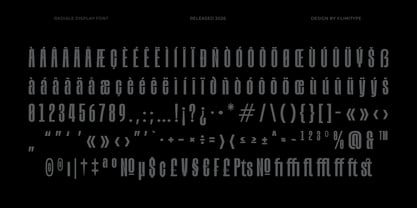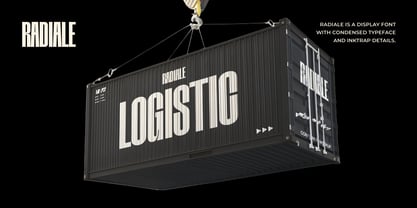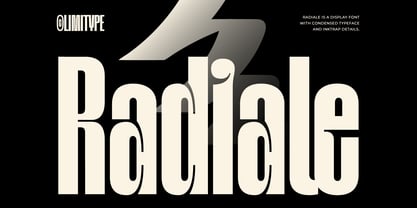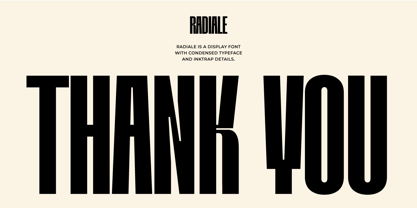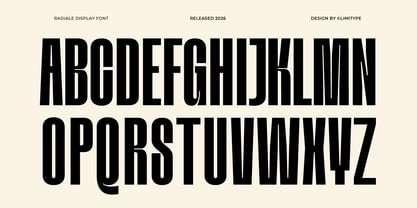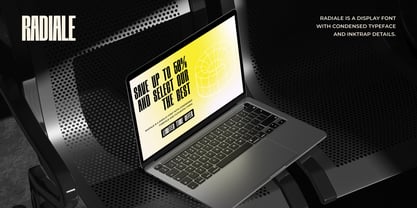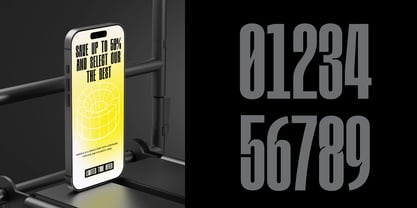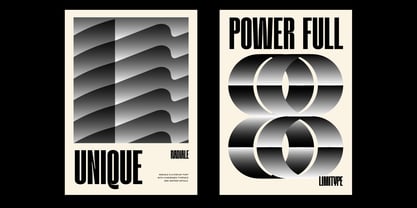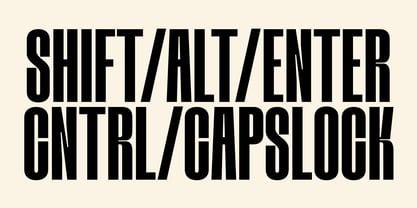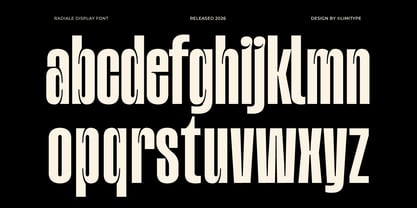
Radiale
von limitype
Die Schriftfamilie Radiale wurde von Ridwan Fadilah, Muhammad Muammar, Furqan Sudirman entworfen und von limitype veröffentlicht. Radiale enthält 1 Stile. Mehr über diese Familie
Radiale is a condensed typeface with ink-traps designed to meet the demands of modern typography across a wide range of visual contexts. Its narrow letterforms optimize space efficiency, while subtly applied ink-trap details ensure clarity and consistency at various sizes and across different media. With a bold, clean, and contemporary character, this typeface is well suited for branding, logos, headlines, packaging, posters, and visual identity systems that require a professional and timeless appearance. Radiale available with: Uppercase Lowercase Number Symbol Multilingual